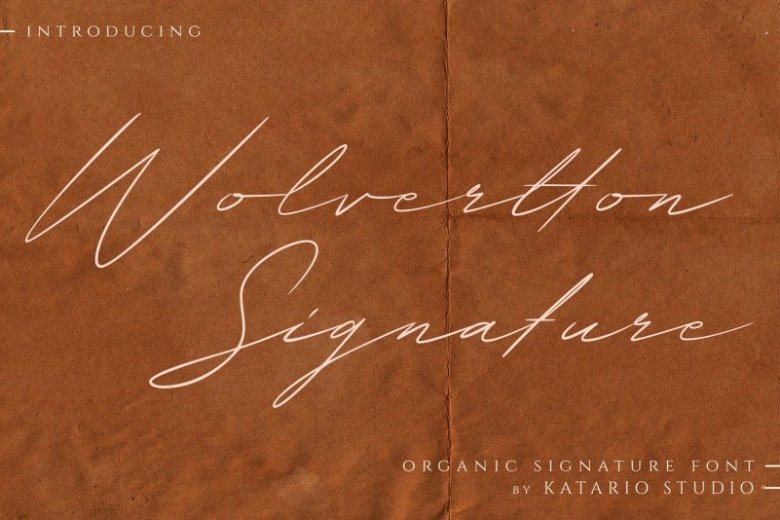
Wolvertton Signature Font
Wolvertton Font is a handwritten signature font, classy handwritten font that designed for minimalist design projects. It’s an exciting handwritten font with signature style. Fall in love with its elegantly playful nature! It’s an organic handwritten font with a natural and elegant style. It looks perfect on premium logos, branding projects, wedding invitations, and so much more.